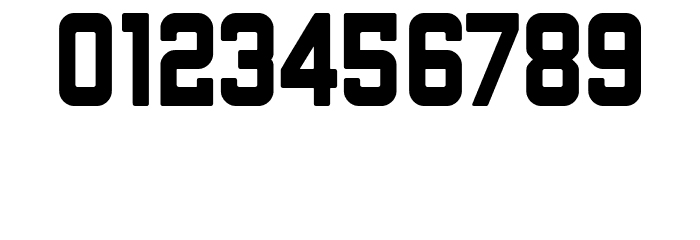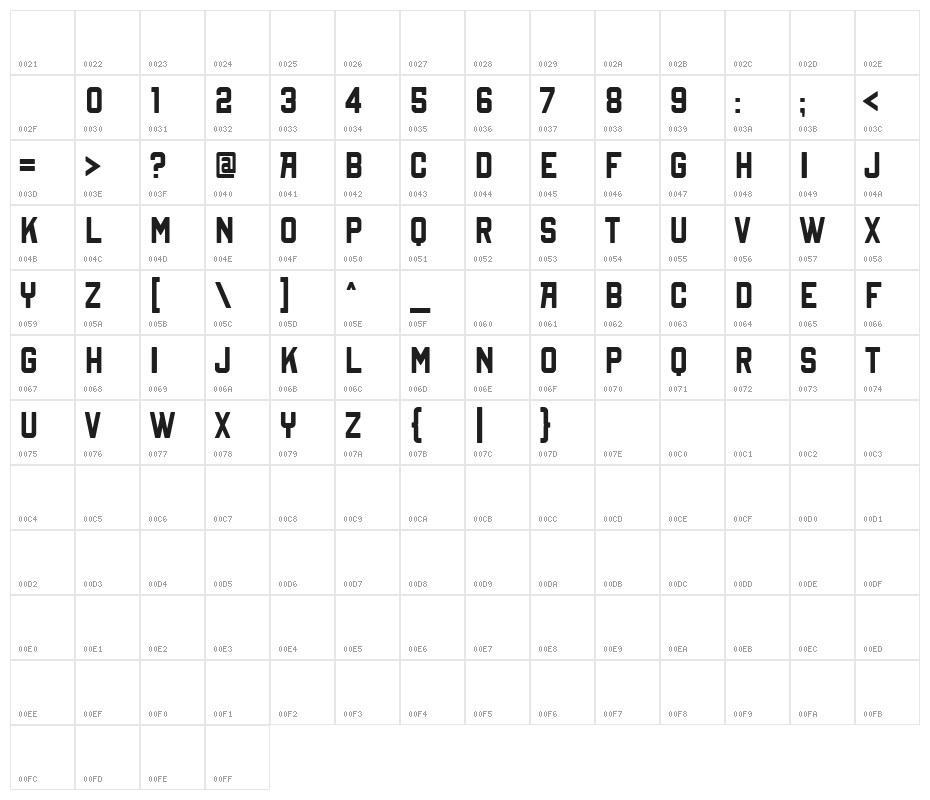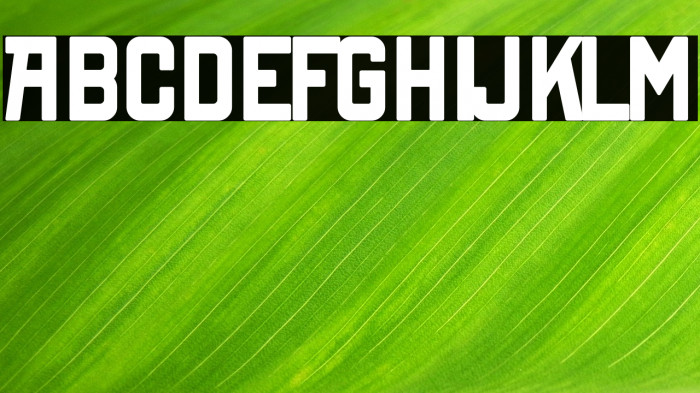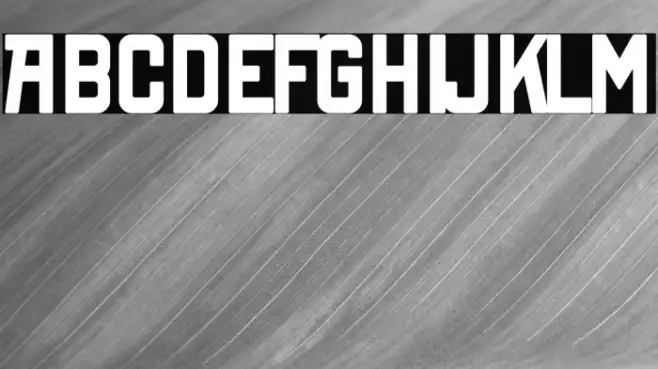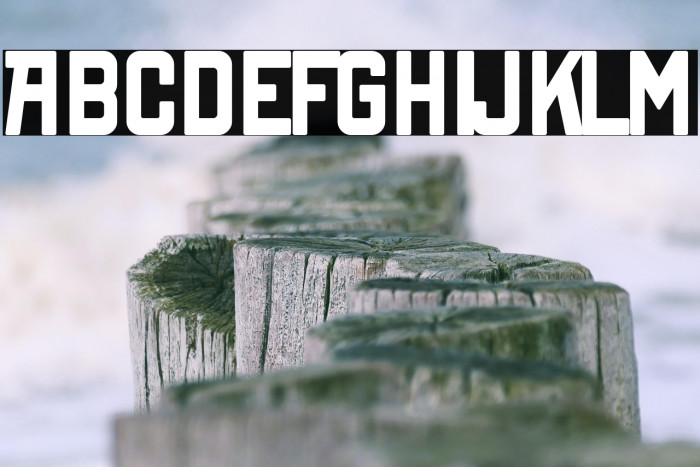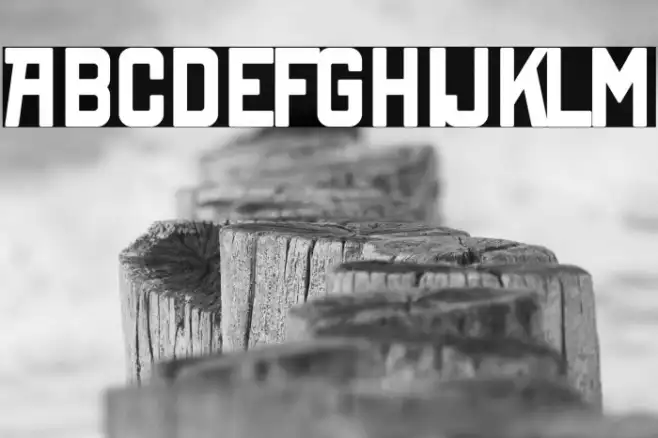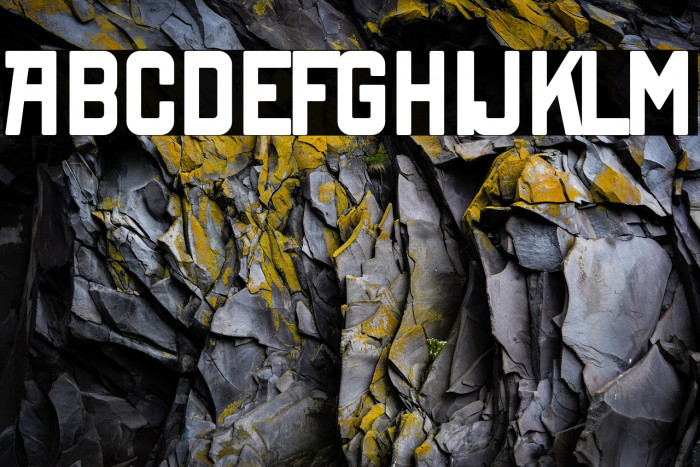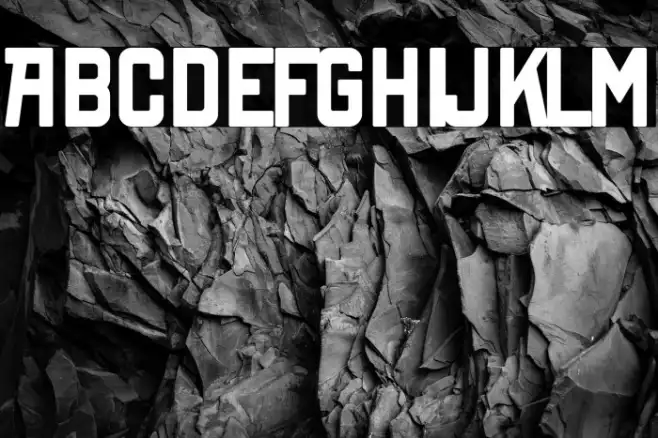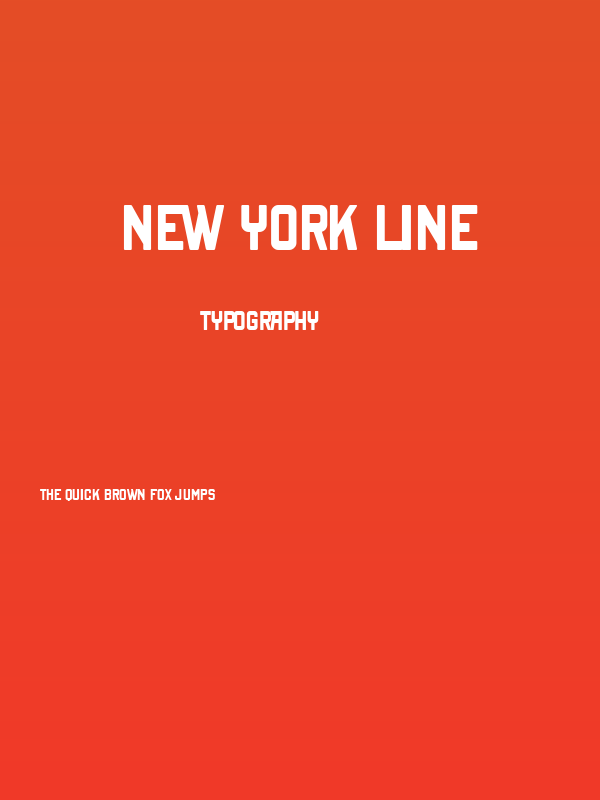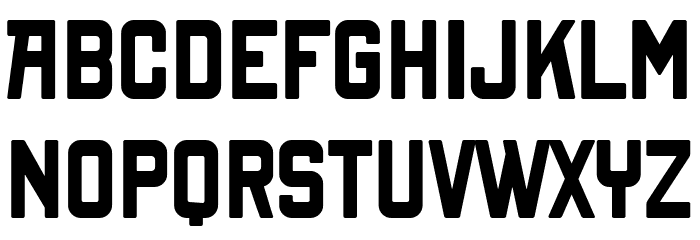
New York Line Font
New York Line Description
This font features a bold and geometric design with a strong presence. The characters are constructed with uniform stroke widths, giving it a robust and modern appearance. The uppercase letters are particularly striking, with a blocky and angular style that conveys strength and stability. The numbers follow the same design principles, ensuring consistency throughout. This typeface is ideal for making a bold statement in any design project, offering a contemporary and assertive aesthetic.
| Proposed Projects | Ideal for branding, posters, headlines, and any project requiring a strong visual impact. |